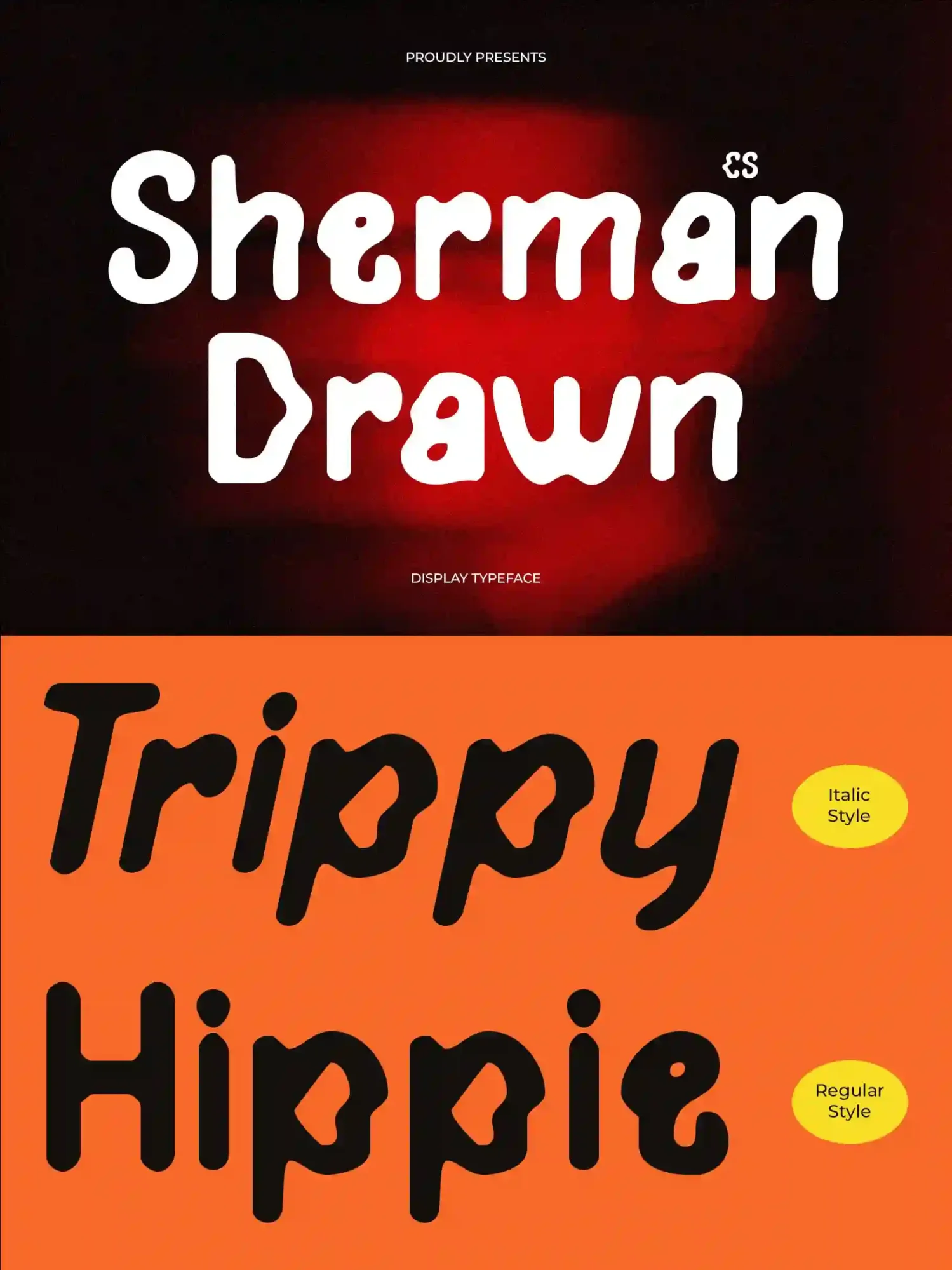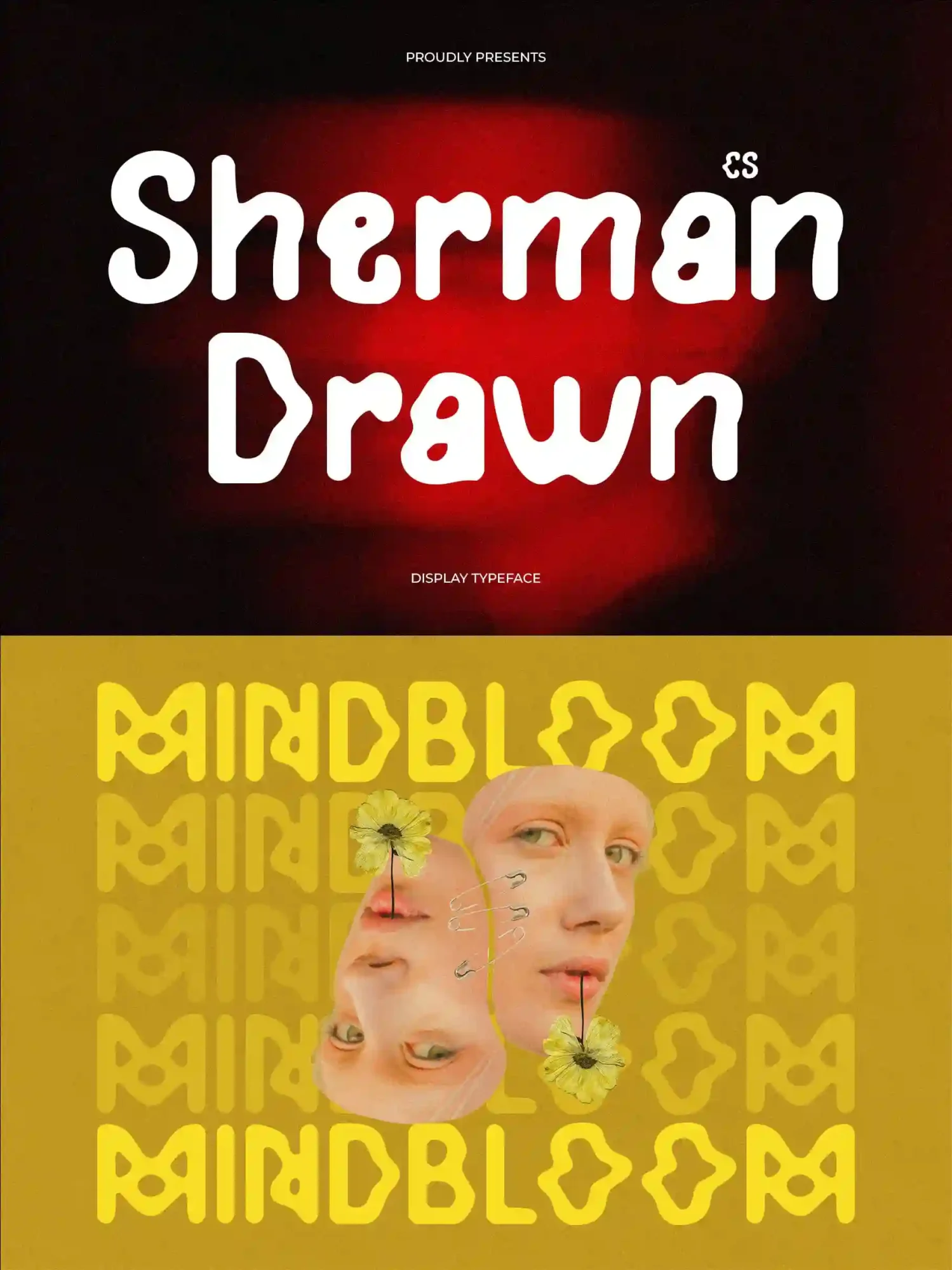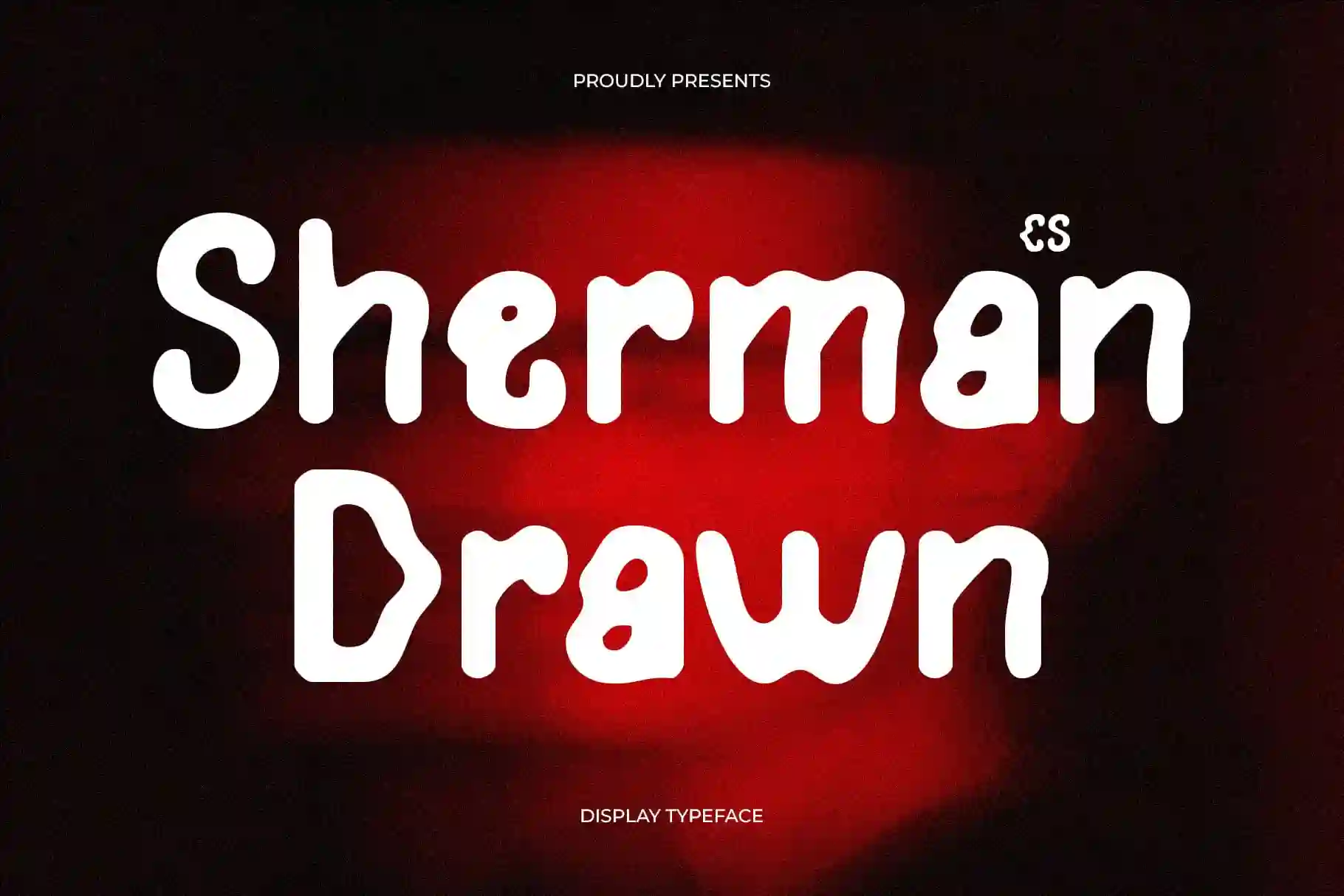
CS Sherman Drawn – Trippy Display Font with Handcrafted Energy: Like Psychedelic with Playful Hand-Drawn Style
Psychedelic Curves and Trippy Energy
CS Sherman Drawn embraces a psychedelic aesthetic, built with flowing, experimental curves that give it a vibrant and unconventional presence. Its trippy letterforms push boundaries, making it a standout choice for projects that want to feel bold, funky, and full of energy.
Hand-Drawn Character for Playfulness
The drawn texture infuses each character with an organic, handmade quality. This playful imperfection enhances the font’s expressive mood, creating a balance between experimental design and approachable charm. It feels alive like a doodle turned into a bold typographic statement.